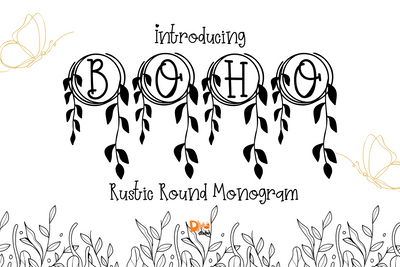
Rustic Round Monogram
Rustic Round Monogram – Circular Serif Monogram Font with Handcrafted Charm
Rustic Round Monogram is a warm, nature-inspired serif monogram font featuring circular letterforms framed with handcrafted rustic details. Designed to evoke simplicity and natural elegance, this font is perfect for farmhouse-style crafts, personalized gifts, and branding that needs an earthy, timeless touch.
Rounded Monogram Layout: Each letter sits inside a centered, symmetrical circle—ideal for balance and precision.
Rustic Details: Subtle hand-drawn textures give a worn, artisanal feel without losing clarity.
Elegant Serif Foundation: Traditional serif shapes blend beautifully with a cozy, vintage design.